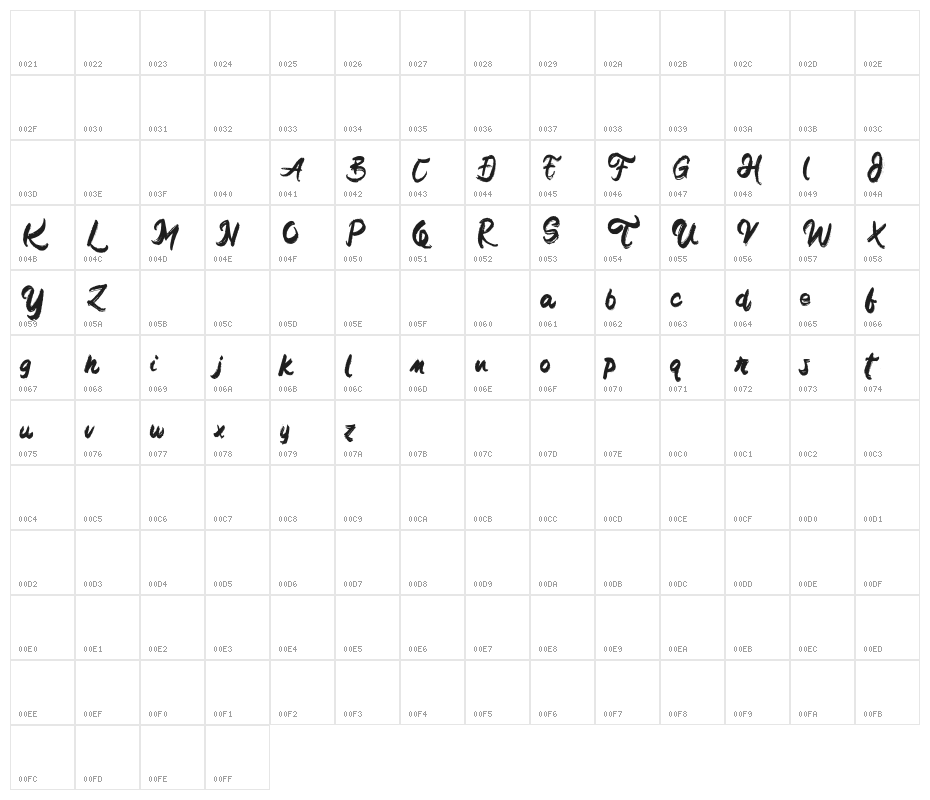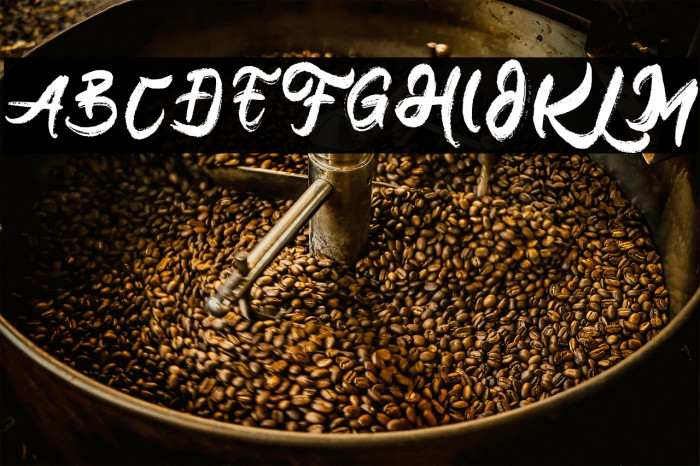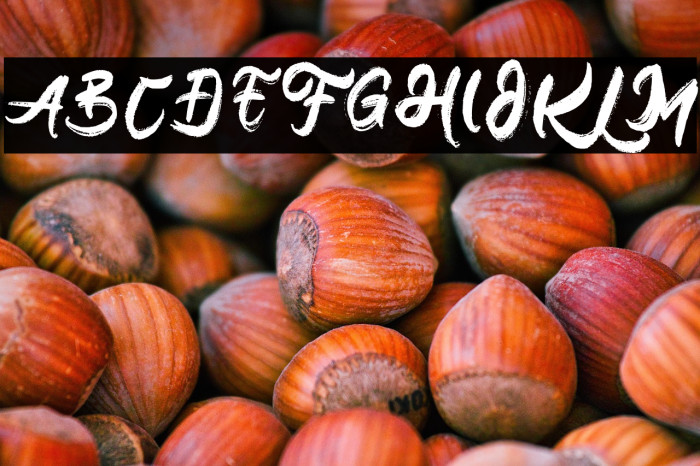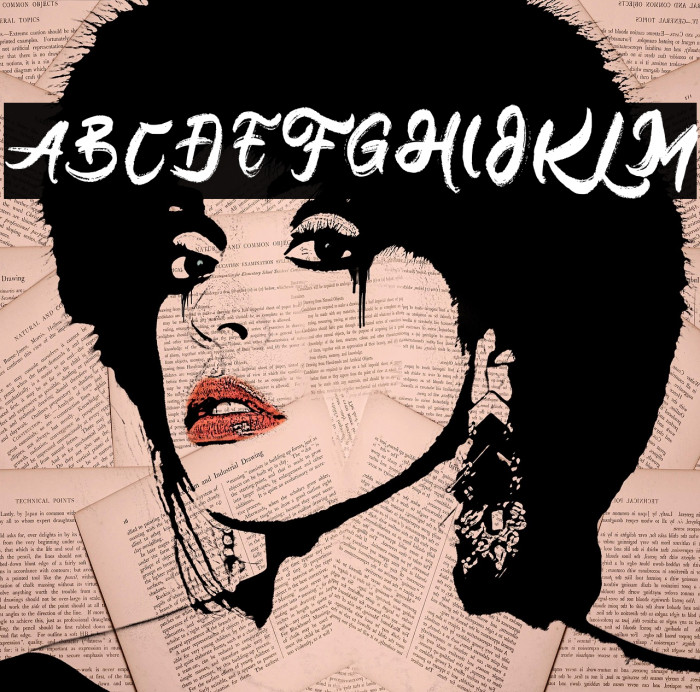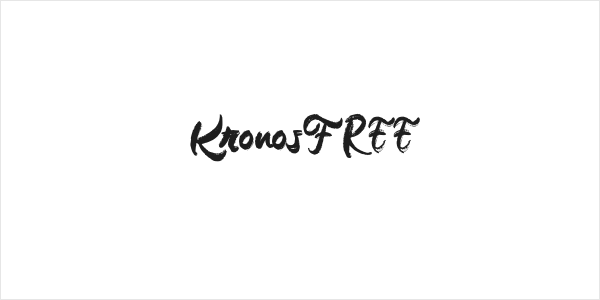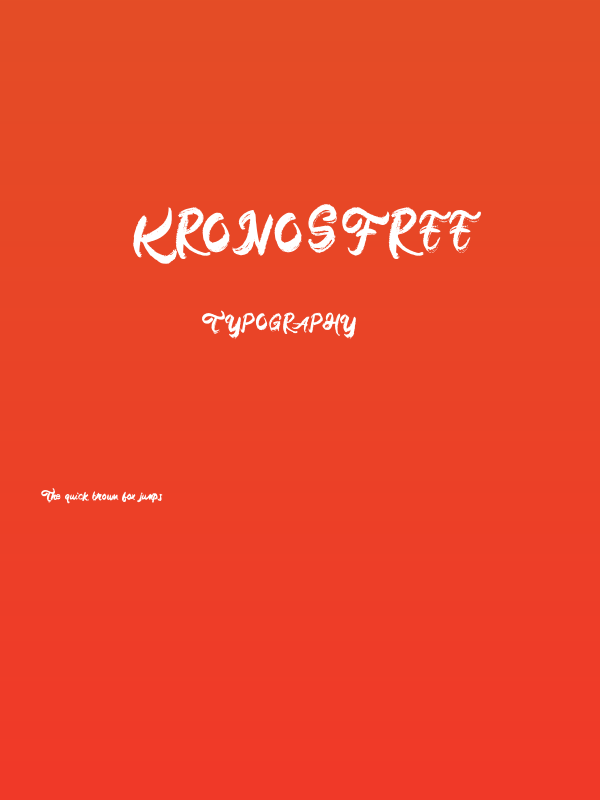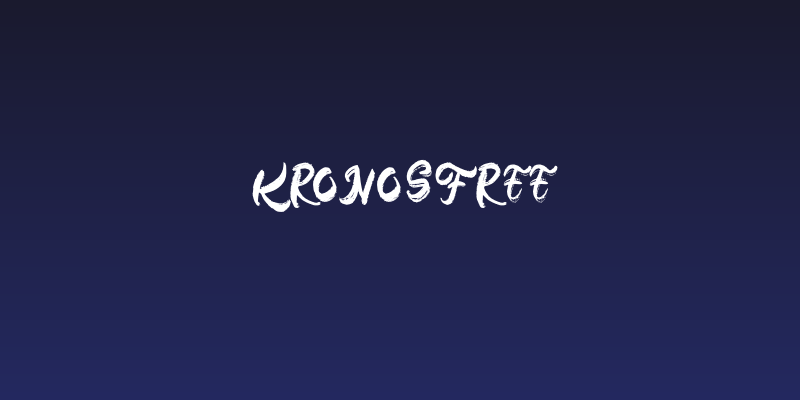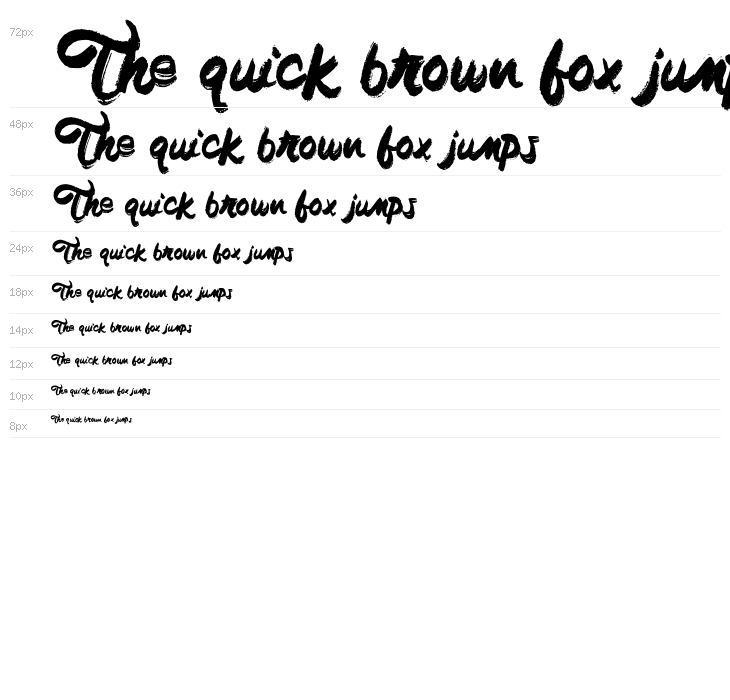
KronosFREE Font
KronosFREE Description
This font exhibits a bold and dynamic brush script style, characterized by its fluid and expressive strokes. The uppercase letters are distinct with a sense of movement, while the lowercase letters maintain a cohesive flow. The font's texture gives it a hand-painted appearance, adding a personal and artistic touch. The characters are slightly condensed, enhancing the energetic feel. The overall design is both modern and artistic, making it suitable for creative projects that require a bold statement.
| Categories | Script |
| Width | Condensed |
| Overall Style | Modern, Artistic |
| Use Case | Logos, Headlines, Posters |
| Proposed Projects | Ideal for branding, posters, artistic projects, and any design requiring a bold, expressive touch. |